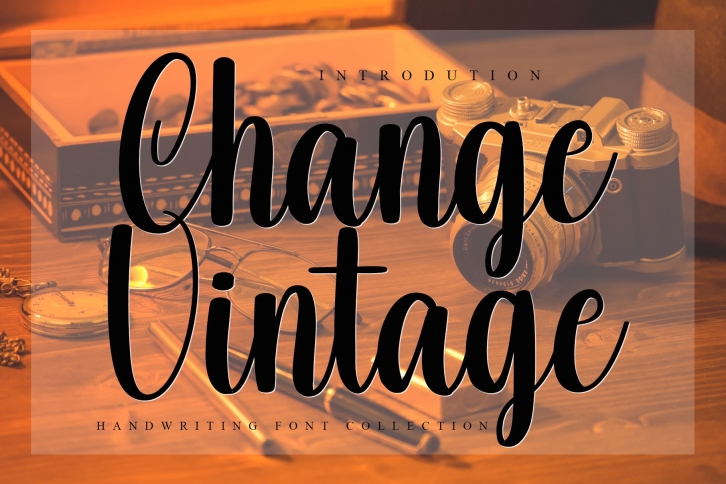
Change Vintage is a simple, natural and flowing script font. It looks stunning on wedding invitations, thank you cards, quotes, greeting cards, logos, business cards and every other design which needs a customized touch.